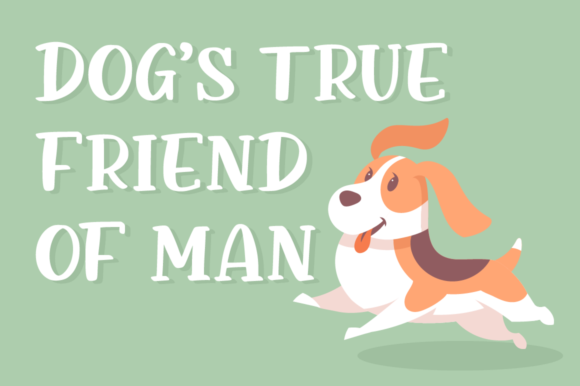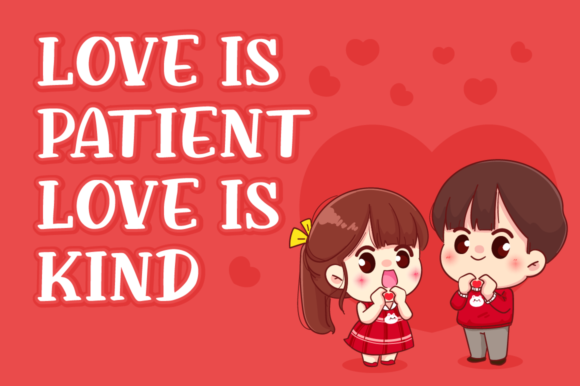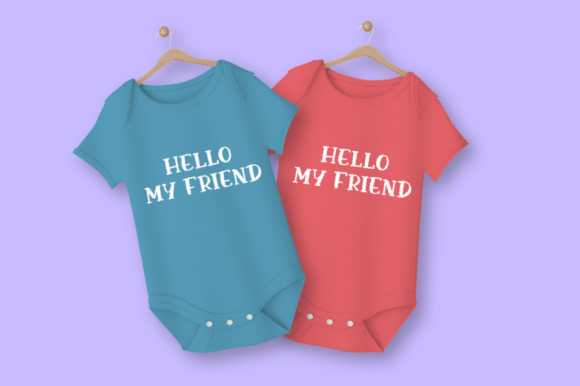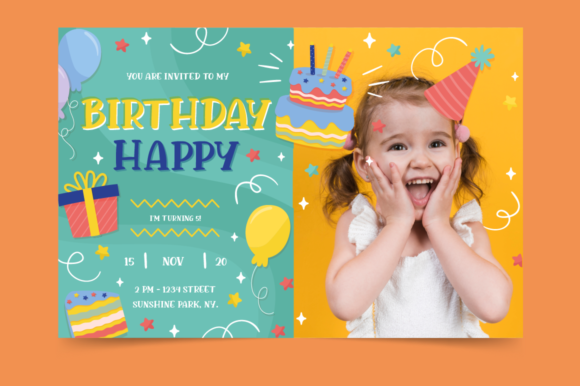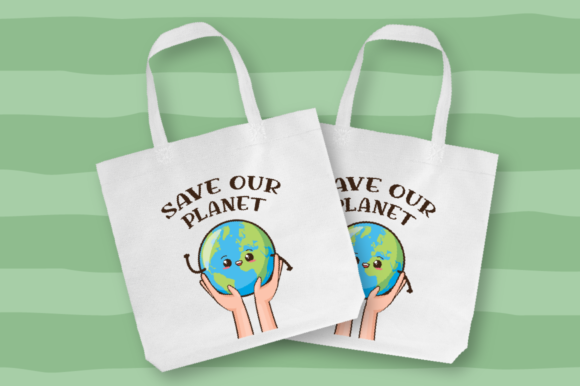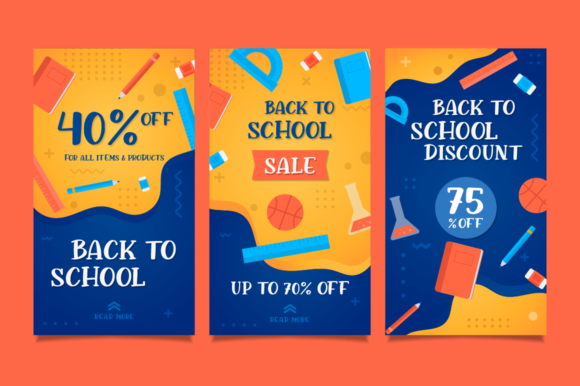
Birdsun Font: Add a Joyful Touch to Your Designs
Are you tired of using the same old fonts in your designs? Do you want to add a playful and quirky touch to your creative projects? Look no further than Birdsun Font! This adorable display font is sure to bring a smile to your face and make your designs stand out from the crowd.
What is Birdsun Font?
Birdsun Font is a unique and charming display font that is perfect for adding a touch of whimsy to your designs. With its playful and curly letters, this font is sure to capture the attention of your audience and leave a lasting impression. Whether you’re a designer, crafter, or DIY enthusiast, Birdsun Font is a great addition to your font collection.
Key Features of Birdsun Font
- Cute and Quirky Design: Birdsun Font features a playful and curly design that is sure to add a joyful touch to your designs.
- Display Font: This font is perfect for headlines, titles, and other display text where you want to make a statement.
- Easy to Read: Despite its playful design, Birdsun Font is easy to read and understand, making it perfect for use in a variety of design projects.
- Versatile: Birdsun Font can be used in a variety of design projects, from digital graphics to print materials.
How to Use Birdsun Font in Your Designs
Birdsun Font is easy to use in a variety of design projects. Here are a few ideas to get you started:
- Digital Graphics: Use Birdsun Font to create eye-catching digital graphics, such as social media posts, blog headers, and email newsletters.
- Print Materials: Add a playful touch to your print materials, such as brochures, flyers, and business cards.
- Crafting Projects: Use Birdsun Font to add a personal touch to your crafting projects, such as handmade cards, scrapbook pages, and DIY decorations.
Benefits of Using Birdsun Font
There are many benefits to using Birdsun Font in your designs. Here are a few:
- Adds a Playful Touch: Birdsun Font adds a playful and whimsical touch to your designs, making them more engaging and fun.
- Stand Out from the Crowd: With its unique and quirky design, Birdsun Font helps your designs stand out from the crowd and grab attention.
- Easy to Use: Birdsun Font is easy to use and can be incorporated into a variety of design projects.
Tips for Getting the Most Out of Birdsun Font
Here are a few tips for getting the most out of Birdsun Font:
- Use it Sparingly: While Birdsun Font is playful and fun, it can be overwhelming if used too much. Use it sparingly to add a touch of whimsy to your designs.
- Pair it with Other Fonts: Birdsun Font pairs well with other fonts, such as serif and sans-serif fonts. Experiment with different font combinations to find the perfect look for your design.
- Experiment with Colors: Birdsun Font looks great in a variety of colors. Experiment with different colors to find the perfect look for your design.
Birdsun Font is a cute and quirky display font that is perfect for adding a joyful touch to your designs. With its playful and curly letters, this font is sure to capture the attention of your audience and leave a lasting impression. Whether you’re a designer, crafter, or DIY enthusiast, Birdsun Font is a great addition to your font collection.
So why wait? Add Birdsun Font to your designs today and notice how it makes them stand out!